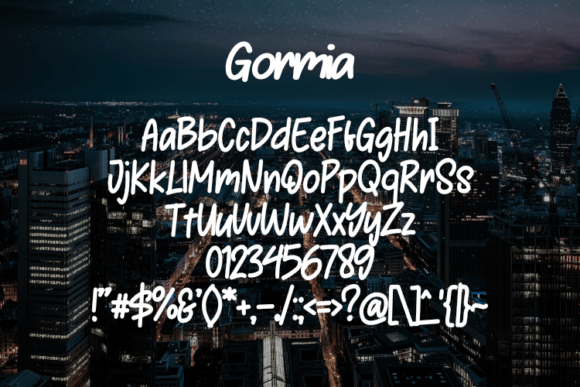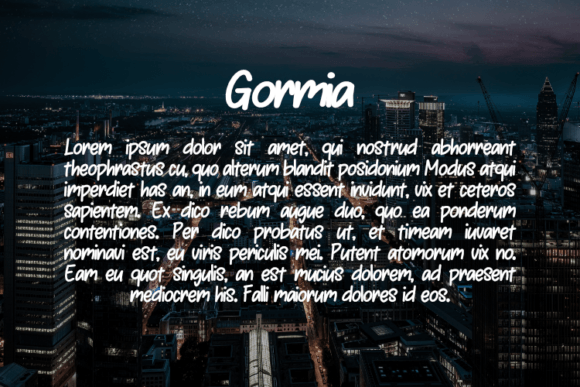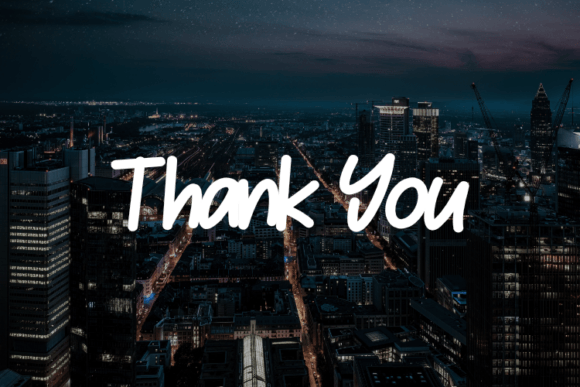
Discover the Versatility of Gormia Font: Elevate Your Fashion Design with a Single, Elegant Typeface
Typography is the backbone of any design, and when it comes to fashion design, the right font can make all the difference. Introducing Gormia Font, a game-changing typeface designed to revolutionize the way you approach fashion design. Whether you’re creating apparels, t-shirts, or a variety of other products, Gormia is the perfect companion to bring your creative vision to life.
Unleash Your Creativity with Gormia’s Universality
What sets Gormia apart is its incredible versatility. This font is not limited to a specific design context; instead, it effortlessly adapts to any project you’re working on. From fashion labels to t-shirt designs, and from digital platforms to print materials, Gormia seamlessly integrates into all software, ensuring that your designs look impeccable across various mediums.
Catering to Diverse Designing Needs
Bringing an Innovative Touch to Your Creations
In the world of design, innovation is key to standing out. Gormia Font brings a remarkably adaptable aesthetic to your creations, allowing you to infuse an innovative touch into every project. Its elegant and clean lines make it perfect for designs that require a touch of sophistication and style. With Gormia, you’re not just choosing a font; you’re elevating your design’s narrative.
Why Choose Gormia for Fashion Design?
- Versatility: Gormia’s universal appeal makes it suitable for a wide range of fashion design projects.
- Elegance: Its sophisticated design adds a touch of class to any project.
- Adaptability: Perfect for both digital and print designs, Gormia adapts to any design context.
Tips for Maximizing Gormia’s Potential
To truly maximize Gormia’s potential, experiment with different sizes, colors, and design combinations. Its adaptability means it can be used for everything from headline text to body copy. Don’t be afraid to push the boundaries of what’s possible with Gormia.
Gormia Font is more than just a typeface; it’s a design companion that can elevate your fashion designs to new heights. Its versatility, combined with its elegant design and compatibility with various software, makes it an indispensable tool for designers and crafters alike. Whether you’re looking to create stunning apparels, unique t-shirts, or any other fashion products, Gormia is the perfect choice. Immerse yourself in the world of typography with Gormia and discover a new realm of creative possibilities.